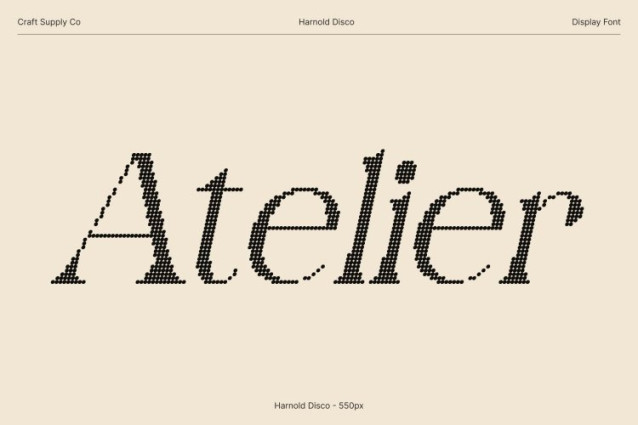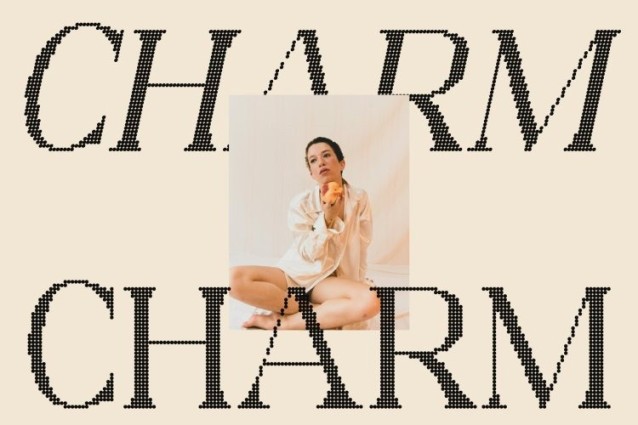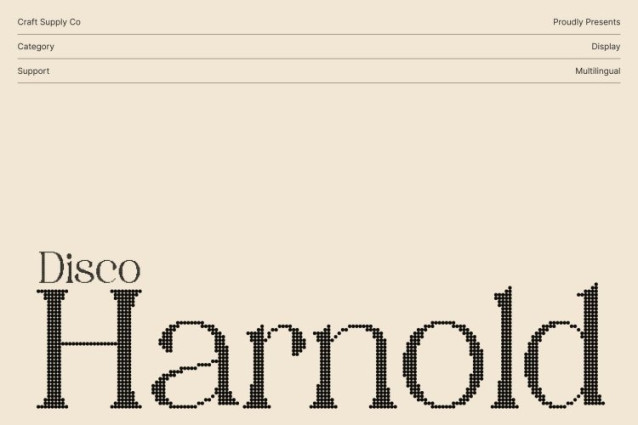
Harnold Disco Font
Harnold Disco Font This is a modern serif font that blends timeless elegance with the vibrant spirit of the disco era. Its refined letterforms carry the sophistication of classic serif design, while subtle curves and sleek proportions give it a stylish, contemporary edge. This unique balance creates a typeface that feels both nostalgic and modern.
Shimmering Texture for Dynamic Visual Rhythm
Enhanced with a dazzling disco shimmer, brings rhythm, motion, and energy to every letter. The sparkling overlay adds a lively, glamorous touch perfect for designers who want to inject excitement into their typography. Each character glows with dynamic flair, making your text instantly eye-catching and expressive.
Ideal for Party Posters, Nostalgic Branding, and Minimalist Headlines
Designed for bold and memorable display use, shines in party posters, retro-inspired branding, music-themed designs, and stylish editorial layouts. Its combination of classic serif elegance and shimmering disco effect makes it versatile enough for minimalist headlines yet striking enough for dramatic visual statements.
A Retro-Modern Typeface Built to Captivate
This font delivers the perfect blend of sophistication and sparkle. Whether you’re evoking nostalgia, creating festive visuals, or adding stylish shine to your brand, this font performs beautifully. With its shimmering texture and polished serif structure, turns every design into a celebration of glamour and modern charm.